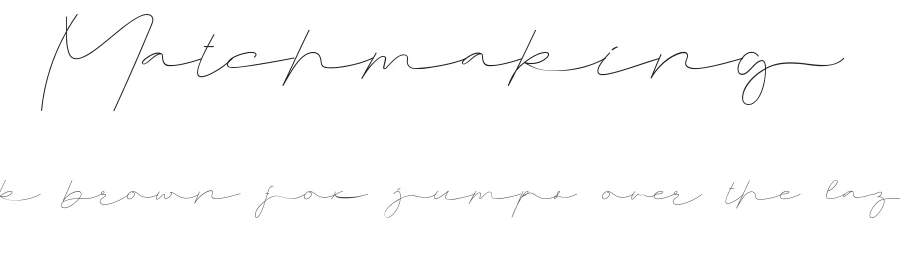
About Hatching Love Font
Hatching Love Specifications
| Font Family | Hatching Love Demo |
| Full Name | Hatching Love Demo |
| PostScript Name | HatchingLoveDemoRegular |
| Designer | Fajar Saepul Rohman & Suci Anita |
Hatching Love supports 168 languages.
Hatching Love Font is a script font that shines as a display or heading face. Pair it with a clean sans-serif or serif font for body text β the contrast creates a clear hierarchy while the two styles stay balanced and easy to read.
Hatching Love Font